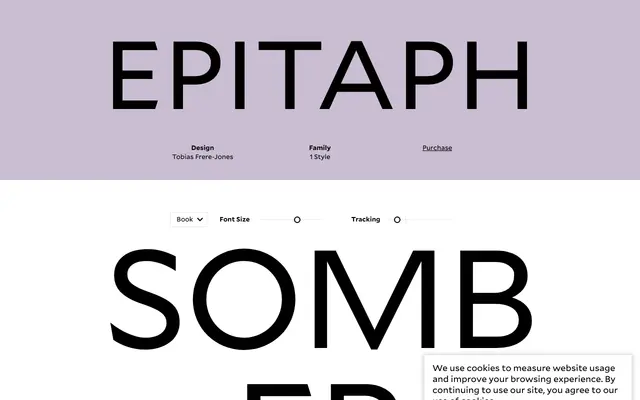
Epitaph
Frere-Jones · Tobias Frere-Jones
A single-style revival of a nineteenth-century American Type Founders display face, drawn by Tobias Frere-Jones from an old ATF specimen.
Drawn from an American Type Founders specimen, Epitaph captures the character of Victorian inscriptional lettering with a tension between harshness and softness that Frere-Jones describes as a fine line between quaint and loud. The family comprises a single Book weight with Latin script support across a wide range of Western European languages. Its narrow application makes it suited to headings, titling and editorial contexts where period flavour is the point.
A revival of a nineteenth-century American Type Founders display face with characteristic Victorian inscriptional qualities, placing it squarely in the display category with a historical decorative subcategory.